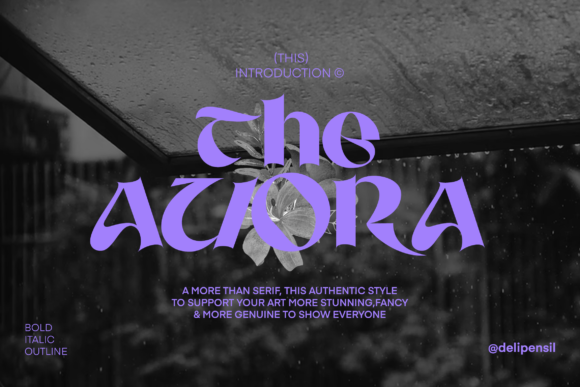
Elevate Your Design with Auora Font: A Timeless Serif Beauty
A Personal Review of Auora Font
What I Love About Auora ✨
- ✅ Vintage retro feel: Auora’s classic serif design instantly adds a touch of sophistication and elegance to any project.
- ✅ Modern accents: The font’s subtle modern twists ensure it doesn’t feel outdated, making it perfect for a wide range of applications.
- ✅ Highly versatile: From branding and magazine titles to product packaging and logos, Auora seems to fit in seamlessly.
- ✅ Easy to read: Despite its elegant design, Auora remains clear and legible, even at smaller sizes.
- ⚠️ Not ideal for body text : Due to its elegant, yet intricate design, Auora works best as a display font. For longer body text, you might want to pair it with a more straightforward font.
The Story Behind Auora Font
Auora’s design story is one of passion and dedication. Inspired by vintage book covers and classic typography, its creator aimed to craft a font that would blend timeless elegance with modern flair. The result is a font that feels both nostalgic and contemporary.
| What makes Auora Font unique? | Auora’s unique blend of vintage charm and modern accents sets it apart from other serif fonts. |
| Is Auora suitable for body text? | While Auora is stunning as a display font, it’s recommended to use it for headings and titles rather than body text due to its intricate design. |